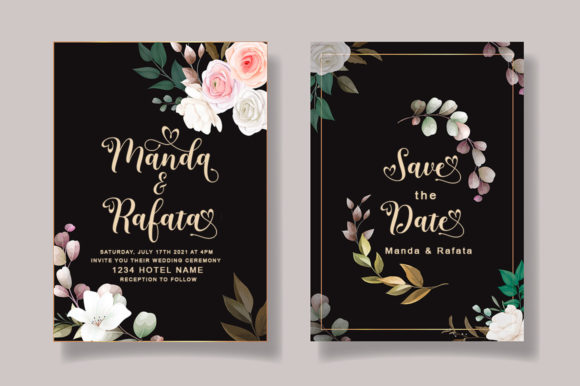
Manda Rawles Font: Elevate Your Designs with Elegance and Sophistication
In the world of typography, a font can make or break a design. With the vast array of fonts available, it can be overwhelming to choose the perfect one that adds a touch of elegance and sophistication to your creations. However, if you’re looking for a script font that stands out from the rest, look no further than Manda Rawles Font. This dazzling script font is a great asset to any font library, capable of enhancing any creation with its unique charm.
What Makes Manda Rawles Font Special?
Manda Rawles Font is a script font that boasts a distinctive and stylish appearance, making it perfect for a wide range of design projects. Here are some of its key features:
- PUA Encoding: Manda Rawles Font is PUA (Private Use Area) encoded, which means you can access all the glyphs and swashes with ease. This feature allows you to have full control over the font’s design elements, giving you the flexibility to create stunning text arrangements.
- Beautiful Swashes: The font comes with a range of beautiful swashes that can be used to add a touch of elegance to your designs. These swashes can be easily accessed using the font’s PUA encoding.
- Highly Versatile: Manda Rawles Font is highly versatile and can be used for a wide range of design projects, from branding and advertising to packaging and digital media.
- Easy to Read: Despite its ornate appearance, Manda Rawles Font is easy to read, making it perfect for body text and headlines.
Design Applications of Manda Rawles Font
Manda Rawles Font is a highly versatile font that can be used for a wide range of design applications. Here are some of the ways you can use this font to elevate your designs:
- Branding and Logo Design: Use Manda Rawles Font to create stunning brand logos and wordmarks that exude elegance and sophistication.
- Advertising and Marketing: The font’s beautiful swashes and elegant appearance make it perfect for use in advertising and marketing materials, such as brochures, flyers, and posters.
- Packaging Design: Manda Rawles Font can be used to create eye-catching packaging designs that stand out on store shelves.
- Digital Media: The font can be used for digital media, such as website headers, social media graphics, and email marketing campaigns.
Typography Tips for Using Manda Rawles Font
To get the most out of Manda Rawles Font, here are some typography tips to keep in mind:
- Pair it with a Sans-Serif Font: Pair Manda Rawles Font with a sans-serif font to create a striking contrast between the two fonts.
- Use it for Headlines: Use Manda Rawles Font for headlines and titles to add a touch of elegance and sophistication to your designs.
- Experiment with Swashes: Experiment with the font’s swashes to create unique and eye-catching text arrangements.
- Keep it Simple: Don’t overdo it with too many font styles or colors. Keep your design simple and elegant to let the font shine.
Why Manda Rawles Font is a Great Asset to Your Font Library
Manda Rawles Font is a great asset to any font library due to its unique features and versatility. Here are some reasons why you should consider adding it to your font collection:
- Unique Appearance: Manda Rawles Font has a distinctive and stylish appearance that sets it apart from other script fonts.
- Highly Versatile: The font can be used for a wide range of design projects, making it a great addition to any font library.
- Elegant and Sophisticated: Manda Rawles Font exudes elegance and sophistication, making it perfect for designs that require a touch of luxury.
- Easy to Use: The font is easy to use and comes with PUA encoding, making it simple to access all the glyphs and swashes.
In conclusion, Manda Rawles Font is a stunning script font that can elevate any design with its unique charm. Its PUA encoding, beautiful swashes, and elegant appearance make it a great asset to any font library. With its versatility and ease of use, Manda Rawles Font is perfect for a wide range of design projects, from branding and advertising to packaging and digital media. Whether you’re a designer or a DIY enthusiast, Manda Rawles Font is a great addition to your font collection.